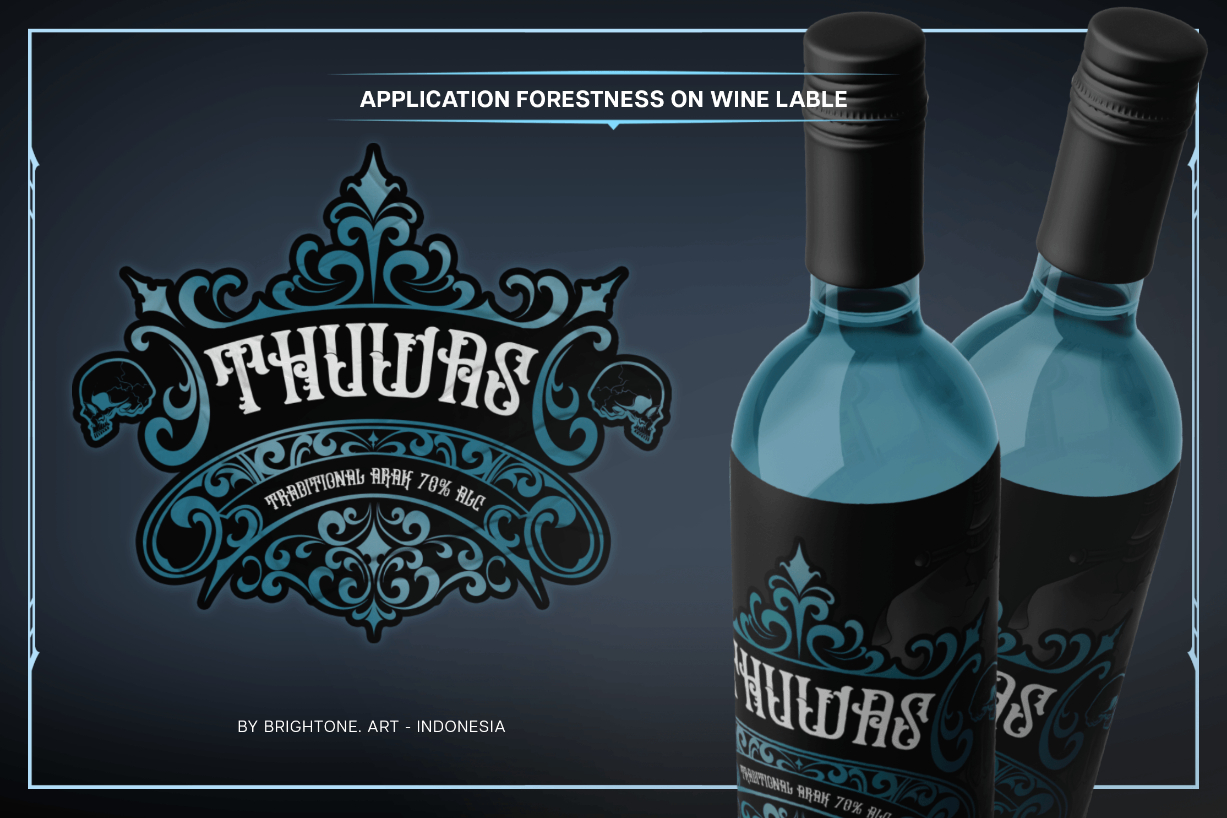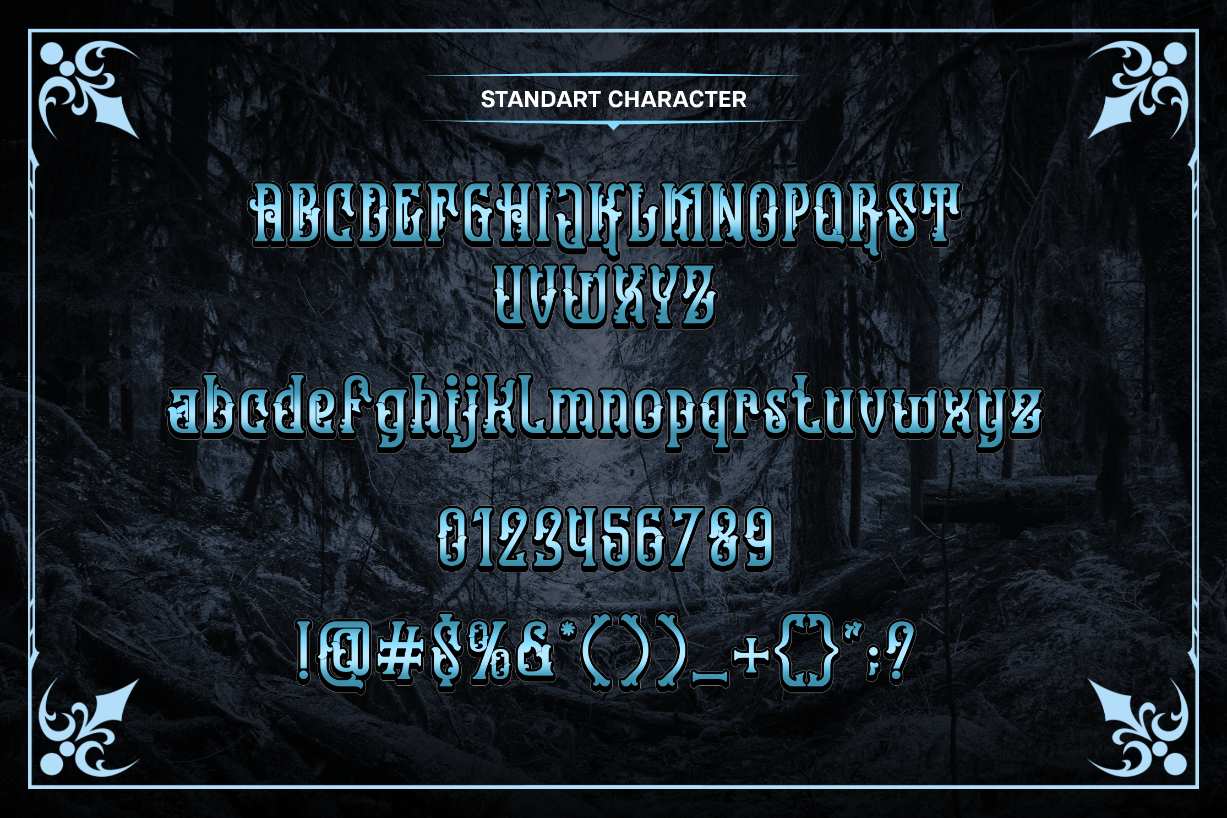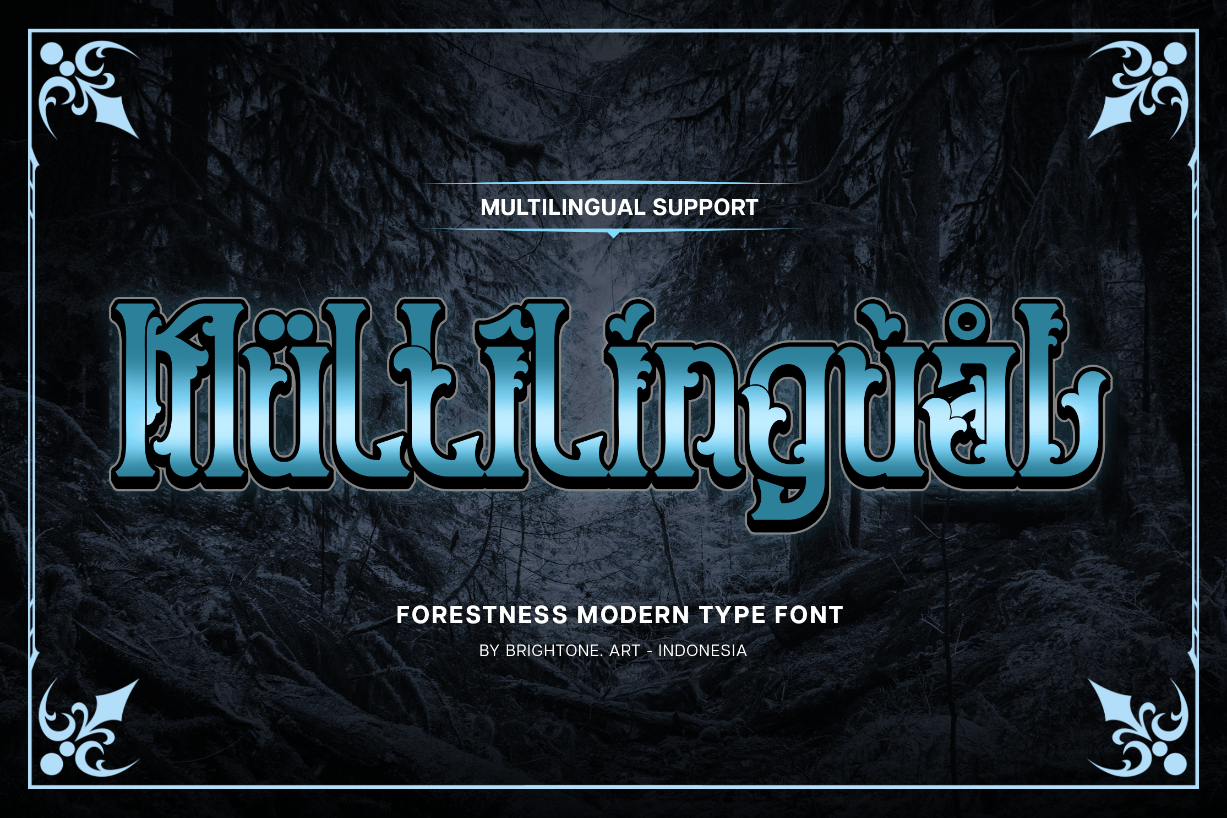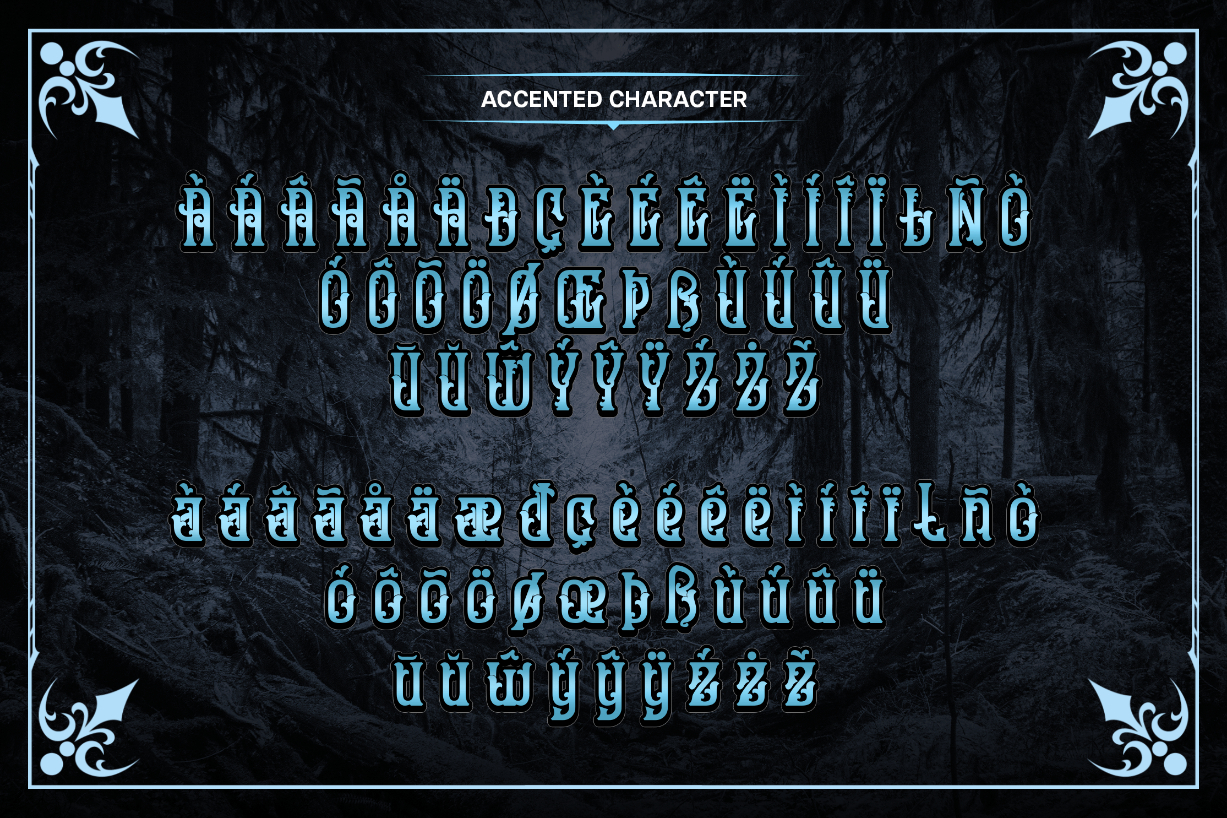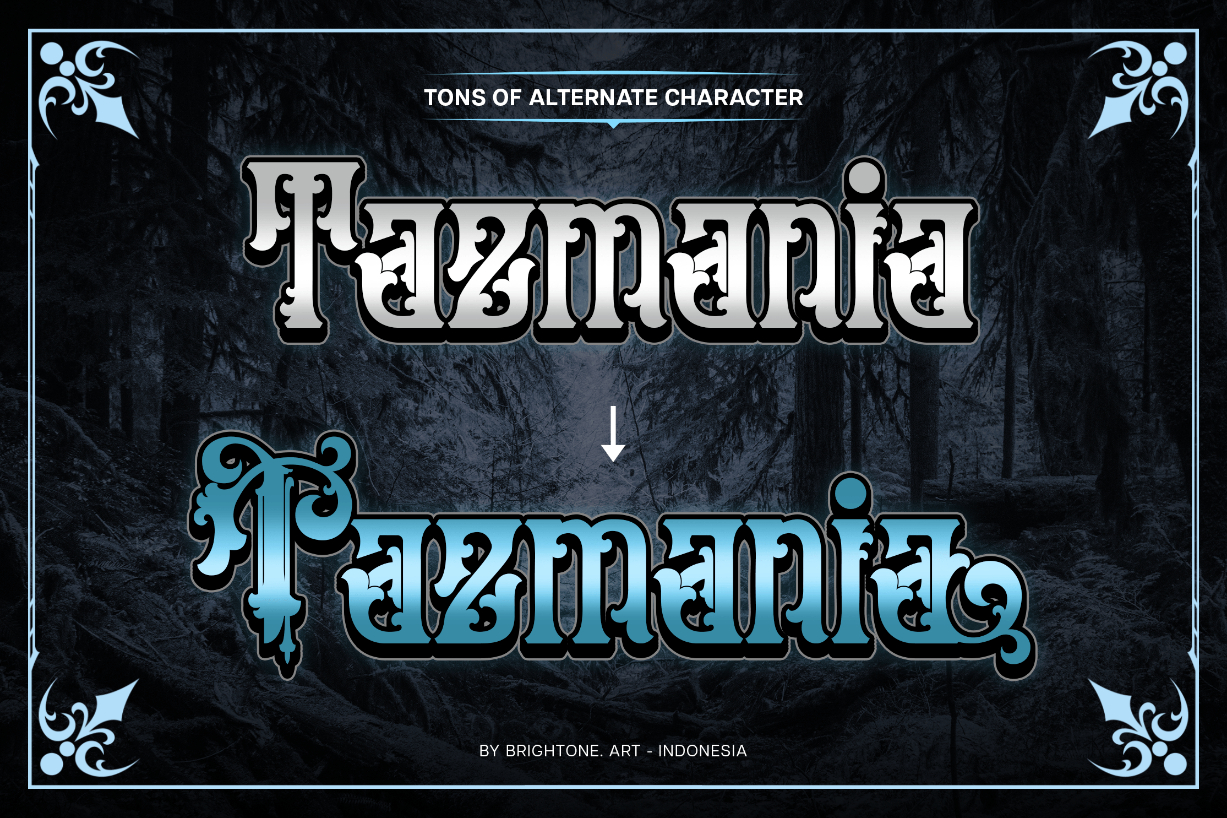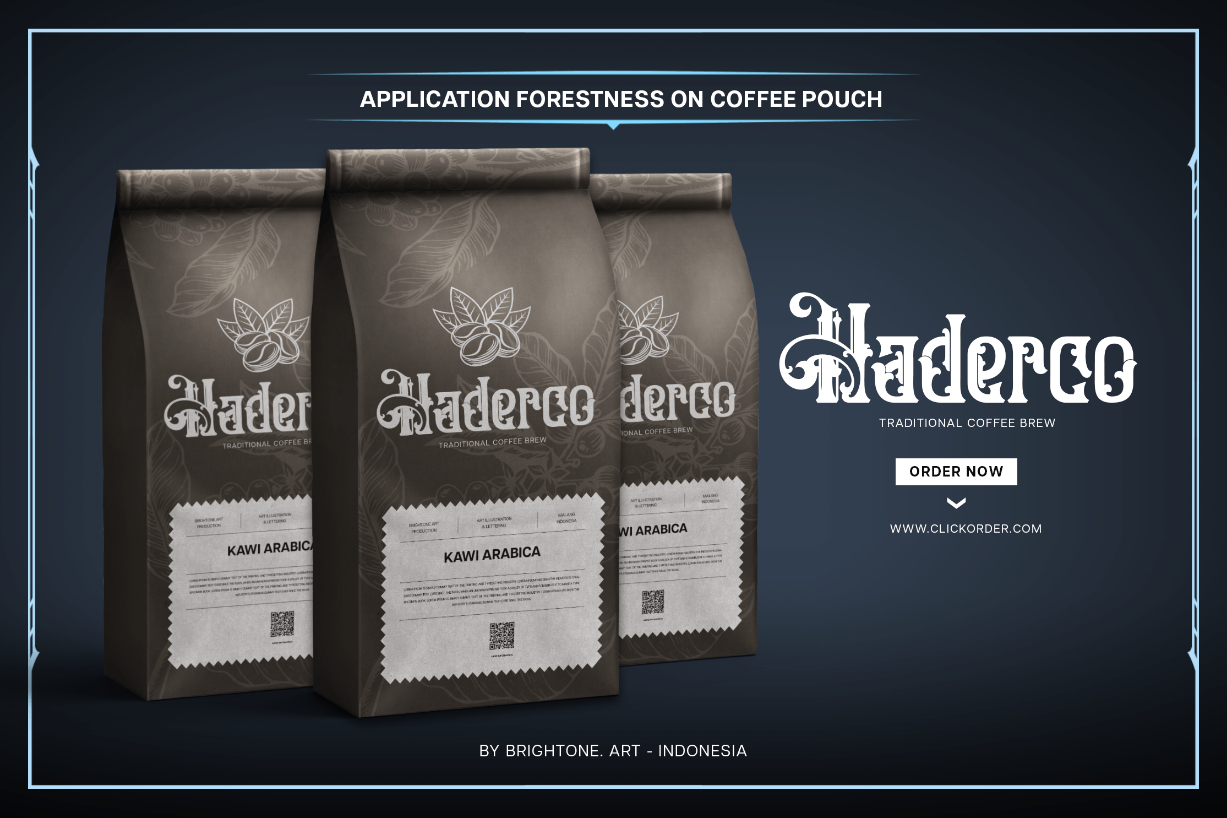
About Forestness Font
Forestness is a unique and stylish blackletter font based on a typeface combination in which shapes are combined to make it more stunning.
Forestness is suitable for logo lettering, logos, labels, packaging, stickers, branding, and more.